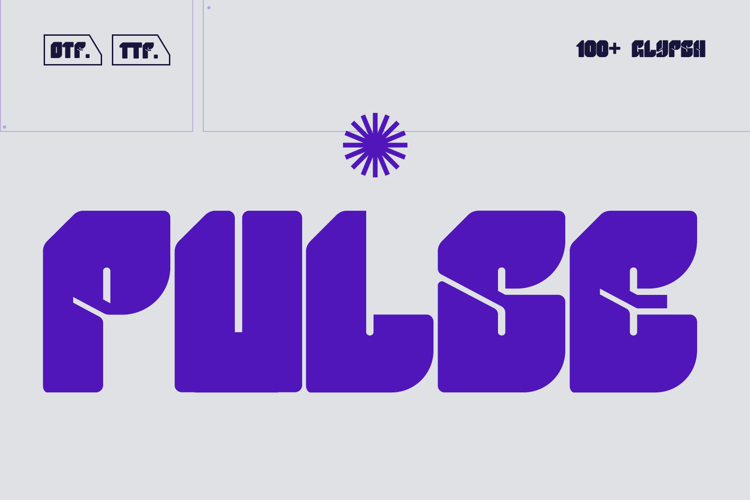
Pulse Font
Pulse - Y2K Display Font
Bring a touch of retro-futuristic to your designs with this meticulously crafted font collection. Perfect for adding a Y2K vibes to your branding, packaging, logos, and more.
Uppercase & Lowercase Characters: Fully designed for a complete typographic experience
Numerals & Punctuation: All the numbers and punctuation marks you need for any design task
Multilingual Support: Includes characters for multiple languages, ensuring global usability
High-Quality Design: Each font is crafted with attention to detail, ensuring a polished and professional look